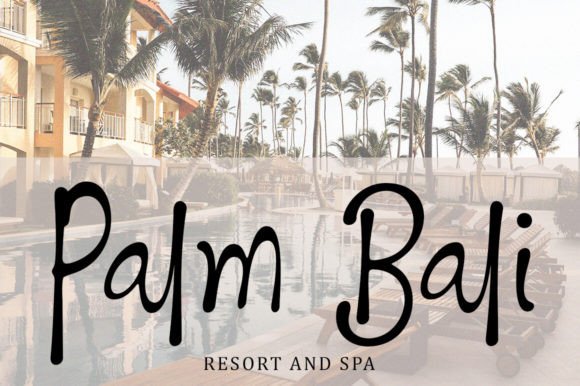
Authentic Signature Font
Authentic Signature is a lovely and timeless handwritten font. It is the best choice for creating eye catching logos, branding and quotes. Every letter has a unique and beautiful touch, which will make your design come alive!